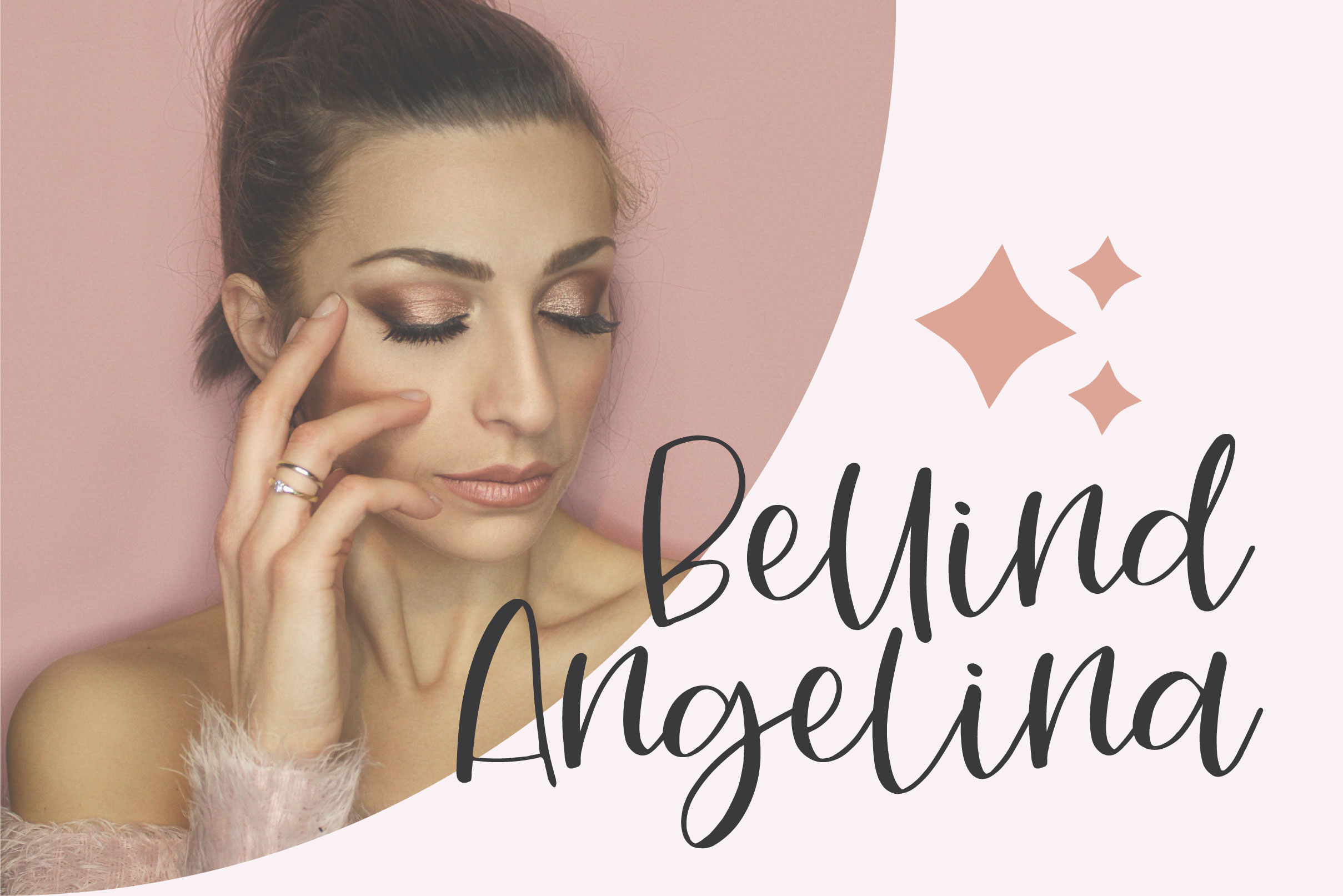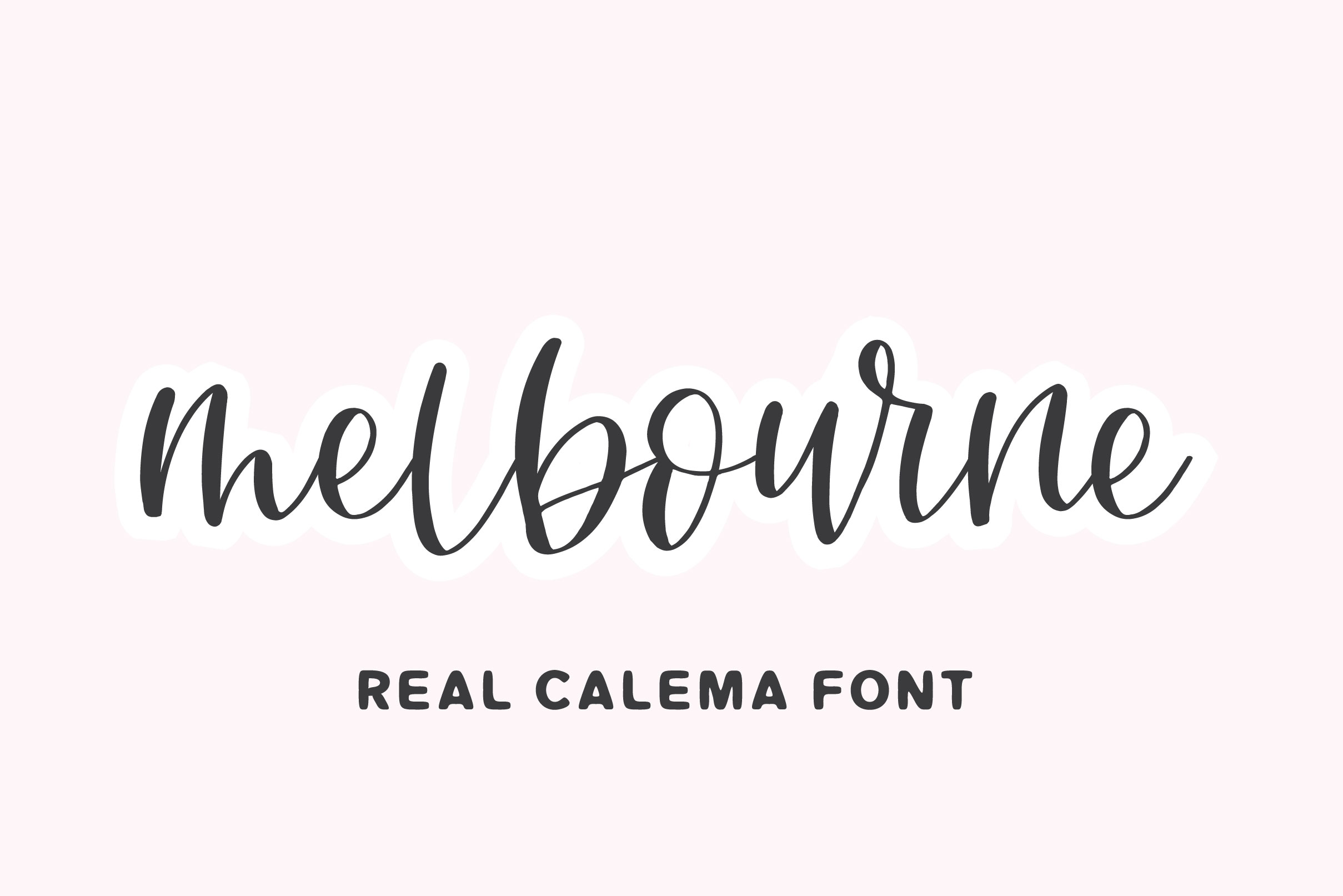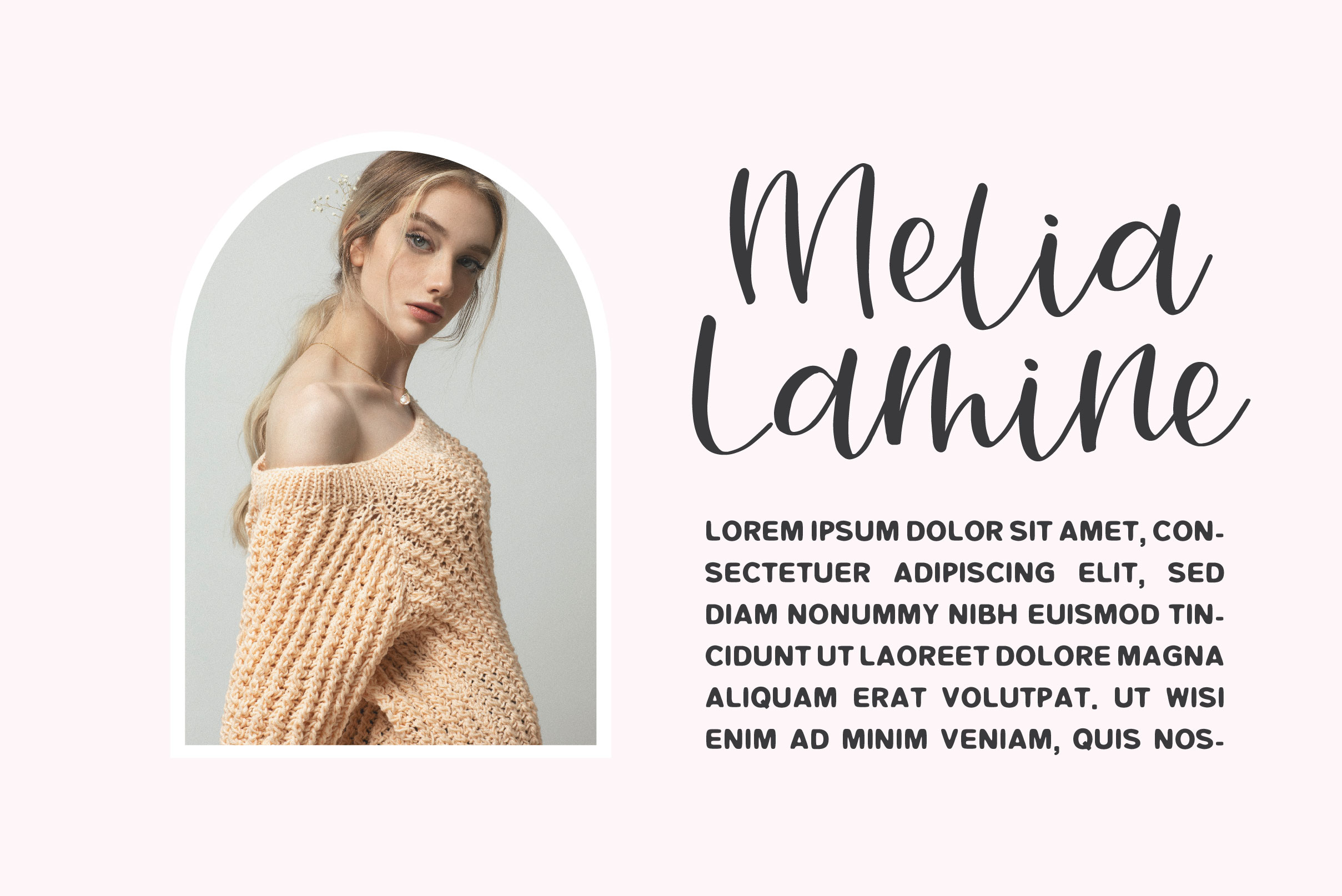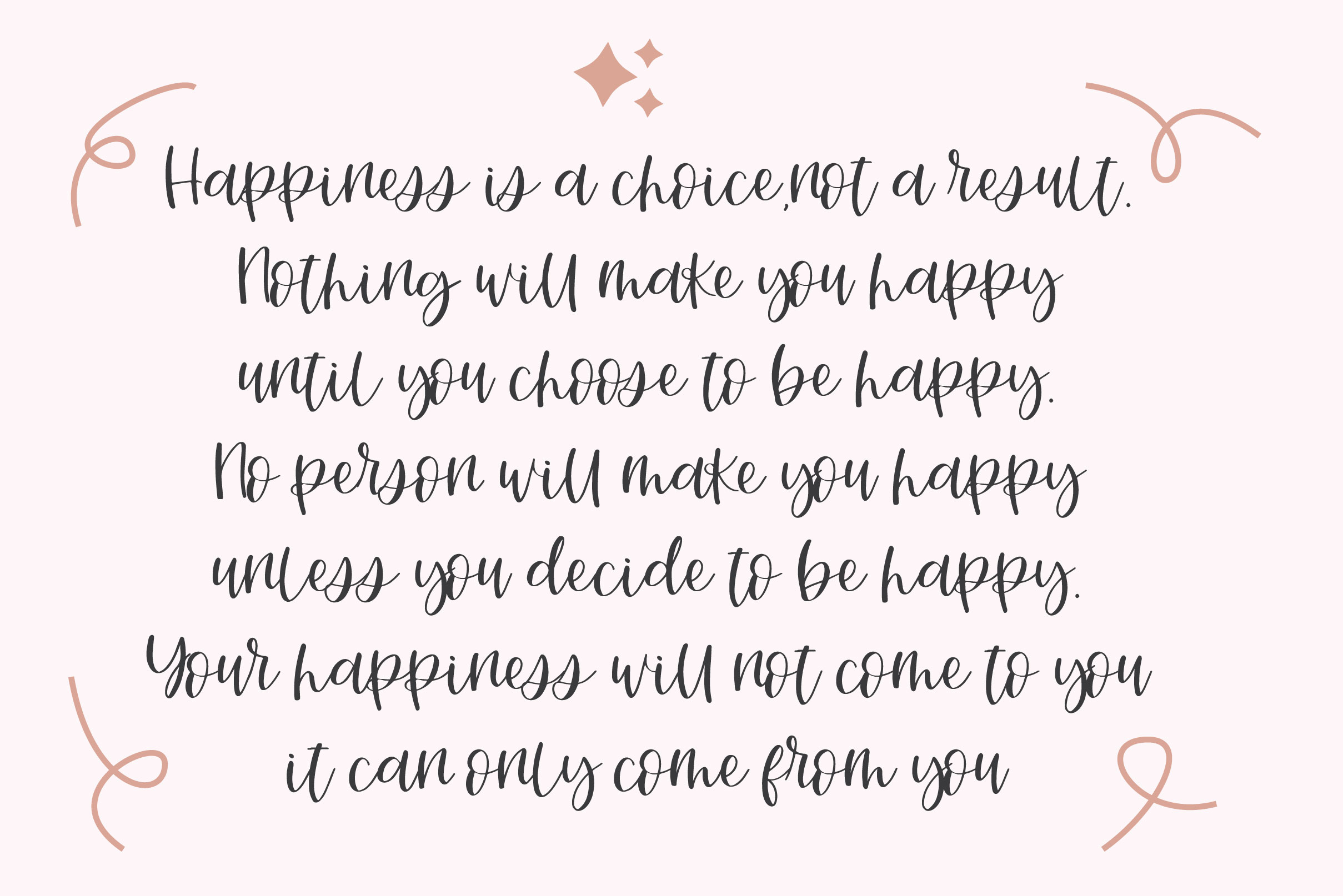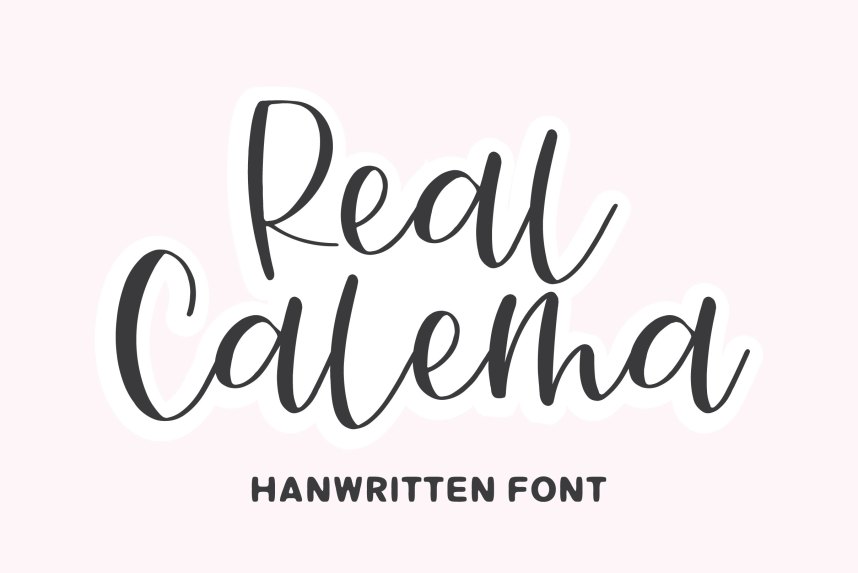
Real Calema Font
Real Calema Script Font is a beautiful handwritten font. It features a whimsical style that makes it perfect for branding, logos, t-shirt design, crafts, quotes, social media, and more!
– Uppercase, Lowercase, Numeral & Punctuation
– Alternate Letters, Ligature & Swash/Tail